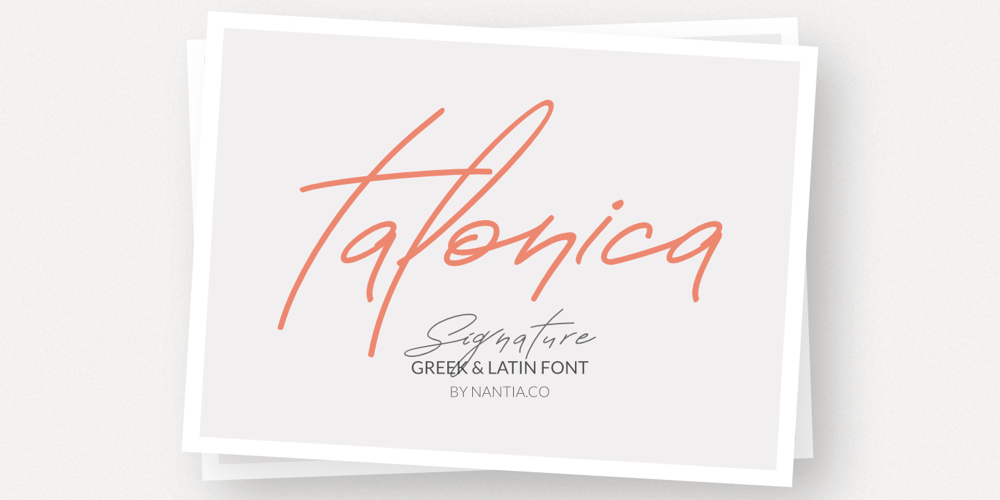
Talonica
Talonica font
Talonica Font Family was designed by Konstantina Louka and published by Nantia.co. Talonica contains 1 styles and family package options. Greek Signature Font Talonica The Greek Signature Font Talonica is a signature decorative font with which you can achieve a hand-lettering style. Talonica is a multilingual lettering font with Greek (of course), Latin characters, and diacritics. Supports all European languages. This signature style is perfect if you want to achieve a modern-looking graphic design project. In addition, this font has a really nice flow so you can also use it in a larger body of text. It can also be used on social media content, for branding or packaging applications.Also, this is the ideal typeface for organic product wine branding and packaging. You can use it to create logotypes with character and natural flow. Additionally, you can use its romantic vibes for wedding invitation designs. Especially if you are looking for a handwritten font for Instagram quote posts or any other social media content, this signature typeface is for you!